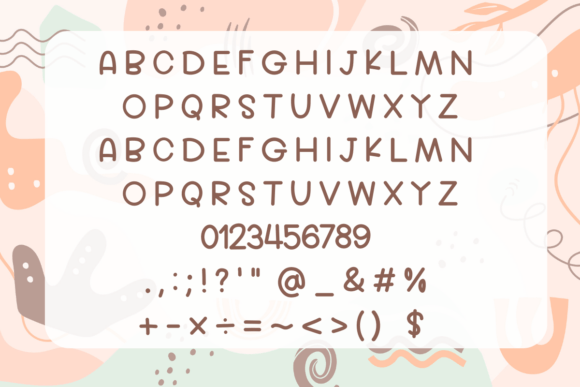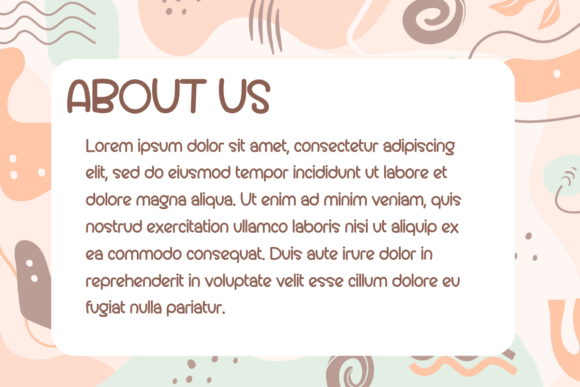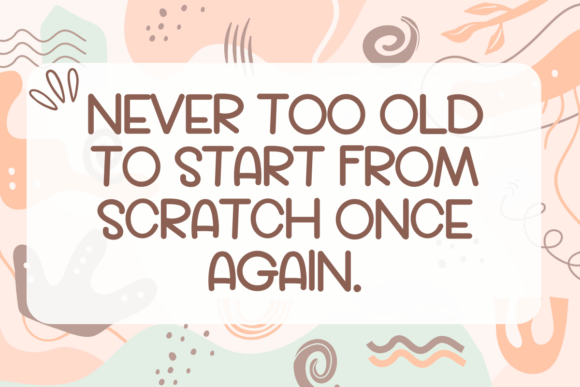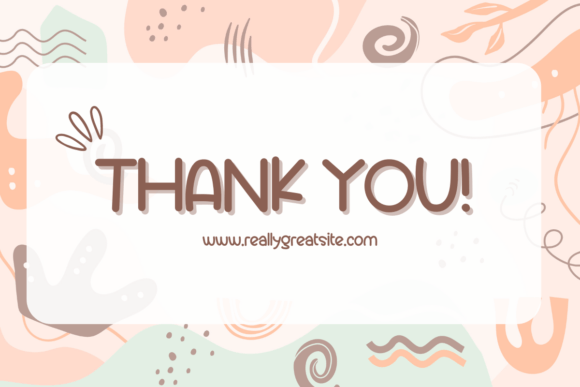
The Charm of Calender Font: A Designer’s New Best Friend
I’ll never forget the time I was working on a handmade greeting card project, and I just couldn’t find the right font to bring my design to life. My client wanted something warm, playful, and personal, but everything I tried seemed either too formal or too bland. That’s when I stumbled upon Calender Font, and let me tell you, it was love at first sight! 💕
Calender is a cute handwritten font that has quickly become a staple in my design toolkit. Its charming, informal vibe makes it perfect for taking notes, writing a diary, or creating greeting cards. But what I love most about Calender is its versatility – you can use it for so much more than just handwritten notes!
What I Love About Calender Font ✨
- ✅ Adorable handwritten style: Calender Font has a unique, whimsical feel that’s perfect for adding a personal touch to your designs.
- ✅ Easy to read: Despite its handwritten nature, Calender Font is surprisingly legible, even at smaller font sizes.
- ✅ Highly versatile: Use Calender Font for banners, social media posts, mugs, cards, shirts, and more!
- ✅ OpenType features: Calender Font comes with a range of OpenType features, including glyphs and stylistic alternates, to help you customize your text.
- ⚠️ Limited use in formal contexts: While Calender Font is amazing for informal designs, it might not be the best choice for more formal projects, like business reports or official documents.
- ⚠️ Some letter spacing issues: At certain font sizes, you might notice a few letter spacing issues – but these can usually be easily fixed with a bit of manual kerning.
The Story Behind Calender Font
Calender Font was designed by a talented typographer who wanted to create a font that captured the warmth and personality of handwritten text. Inspired by vintage calendars and handwritten notes, Calender Font was born – a charming, informal font that’s perfect for adding a personal touch to your designs.
Q: Is Calender Font suitable for body text?
While Calender Font is easy to read, it’s best suited for headings, titles, and short paragraphs. For longer body text, you might prefer a more traditional font.